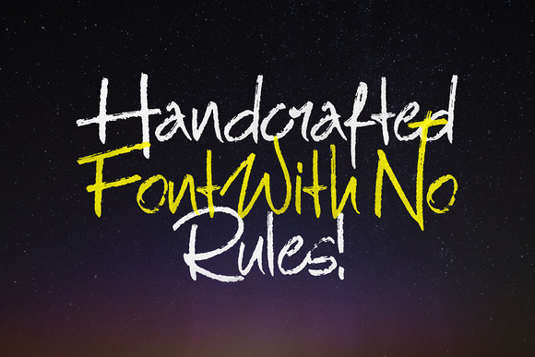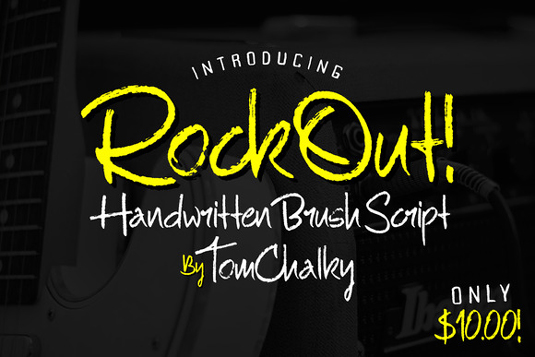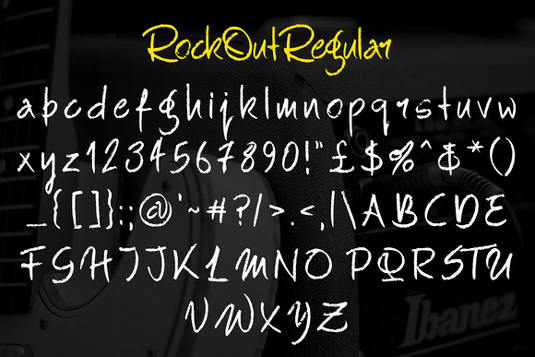
Font of the day: RockOut
RockOut by Tom Chalky
Designer Tom Chalky kicks off our font of the day posts this week with handcrafted typeface RockOut. "My latest brush script display font RockOut is rough, loud, creative and stands out from the crowd whilst still being a legible typeface," he comments.